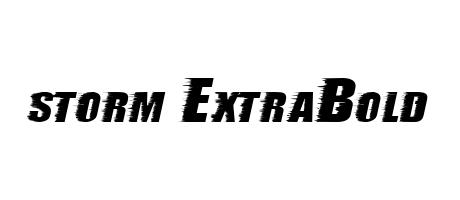
Storm
By Dieter Schumacher
Storm ExtraBold is a bold, italicized typeface with a slightly distressed, almost motion-blurred effect. The letters are thick and confident, suggesting speed and power. The "ExtraBold" portion emphasizes the weight and intensity of the design, suitable for headlines or branding that demands attention.